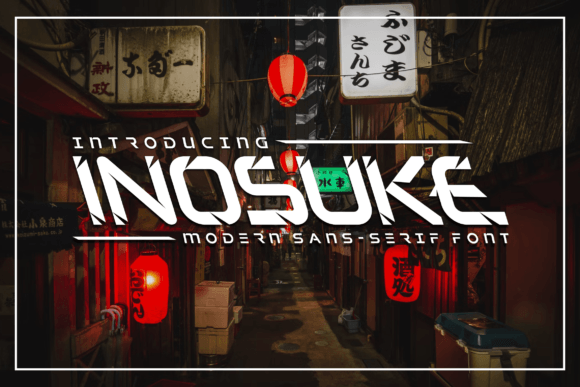
Inosuke Font
Dive into the realm of Inosuke, a revolutionary sans serif font that resonates with the electrifying energy of science fiction films, captivating games, and thought-provoking concept art. Its captivating curves and sharp angles dance across the screen, leaving a trail of intrigue and wonder. Unleash your creativity and go on an epic journey with Inosuke, a font like no other.
Inosuke is not just a font; it's a gateway to a world where imagination knows no bounds. Its futuristic allure transports you to a realm of innovation and discovery, where the lines between reality and fantasy blur. With Inosuke as your visual companion, you can craft designs that command attention and spark conversations.
Picture this: Your vintage T-shirts transformed into relics of the future, each shirt a canvas for your imagination. Inosuke's bold characters leap off the fabric, carrying your messages with an otherworldly charm. Embrace the cyberpunk aesthetic and create designs that resonate with the curious and the adventurous.
Beyond T-shirts, Inosuke lends its distinctive voice to headlines, posters, and an array of digital creations. Its versatility is a conductor of creativity, guiding you through a symphony of design possibilities. Let Inosuke's energy electrify your social media posts, website banners, or any digital realm where your imagination sets sail.
Inosuke is more than a collection of letters; it's an artistic force that fuels your passion for the extraordinary. Its story is woven into every curve, every line, inspiring you to push the boundaries of typography and visual expression.
Join the growing community of artists, designers, and visionaries who have embraced Inosuke's captivating allure. Let your creativity flourish and experience the transformative power of a font that's as unique as you are.
Embrace Inosuke, the font that takes you beyond the ordinary, propelling you into a world of endless possibilities. Unleash your imagination today and craft designs that speak to the soul of the future.